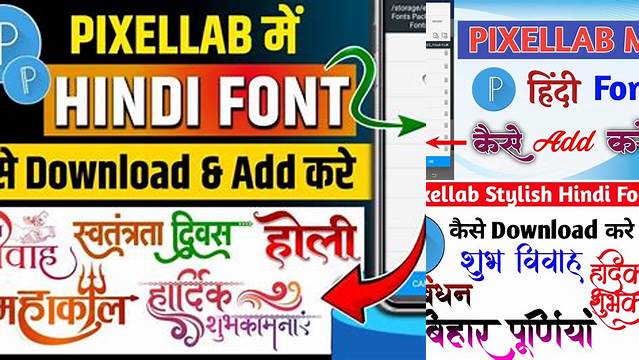
Awesome Hindi Fonts For PixelLab: A Complete Guide
Hey guys! Are you ready to dive into the world of beautiful Hindi typography in PixelLab? Using Hindi fonts in PixelLab can drastically elevate your designs, giving them a unique cultural touch and making them more appealing to a wider audience. Whether you're creating social media posts, posters, or any other graphic design project, the right Hindi font can make all the difference. In this comprehensive guide, we'll explore everything you need to know about using Hindi fonts in PixelLab. We'll cover where to find them, how to install them, and how to use them effectively to create stunning visuals. So, let's get started and unlock the potential of Hindi fonts in PixelLab!
H2: Why Use Hindi Fonts in PixelLab?
Alright, so why bother with Hindi fonts in PixelLab? Well, the first and foremost reason is to cater to a massive audience. Hindi is one of the most spoken languages in the world, and using Hindi fonts in your designs instantly makes them relatable and accessible to a vast number of people. Imagine creating a poster for an event; using a Hindi font can significantly increase its reach and appeal to the Hindi-speaking population. This is especially true if you're targeting a specific region or community where Hindi is widely spoken. Beyond audience reach, Hindi fonts add a unique aesthetic appeal to your designs. They bring a sense of cultural identity and authenticity that is hard to replicate with generic fonts. The beauty and elegance of Hindi script can transform a simple design into something truly eye-catching and memorable. Moreover, using Hindi fonts showcases your respect for the language and culture. It demonstrates that you value diversity and inclusion, making your brand or message more appealing to a broader audience. It is also a great way to stand out from the crowd. In a world saturated with content, using Hindi fonts can help your designs stand out and grab attention. It creates a visual distinction that makes your work more memorable and unique. This is crucial for building brand recognition and making a lasting impression on your audience. Using Hindi fonts in PixelLab isn't just about aesthetics; it's about connecting with a culture, expanding your reach, and creating designs that resonate with a diverse audience. So, incorporating these fonts can be a strategic move to enhance your visual communication and achieve your design goals.
H3: The Cultural Significance of Hindi Fonts in Design
When we talk about Hindi fonts in PixelLab, we're not just talking about letters and characters; we're talking about a rich tapestry of culture and history. Each Hindi font carries with it a unique story, reflecting the region's heritage and the traditions of the Hindi-speaking communities. These fonts are more than just a visual element; they represent a connection to a vibrant culture. The use of Hindi fonts in your designs demonstrates an understanding and appreciation of this cultural richness. This is especially important if you are targeting an audience that values their cultural identity. It shows that you respect their language, history, and traditions. Using Hindi fonts can also elevate your designs from a purely aesthetic perspective. The graceful curves and unique strokes of Hindi characters add an artistic flair that is hard to achieve with other fonts. They can bring a sense of elegance, sophistication, or even playfulness to your designs, depending on the font you choose. The specific font you choose can also communicate a lot about the tone and feel of your design. A traditional font might be perfect for a project related to history or culture, while a modern font could be ideal for a contemporary brand. By carefully selecting your Hindi fonts, you can create a consistent brand image that resonates with your target audience. Using Hindi fonts in PixelLab isn't just about visual appeal; it's about creating a deeper connection with your audience and enriching your designs with cultural significance. So, embrace the beauty and versatility of Hindi typography, and let it breathe new life into your creative projects. Remember, your choice of font speaks volumes and plays a crucial role in the overall impact of your design.
H2: Finding the Best Hindi Fonts for PixelLab
So, you're ready to find some awesome Hindi fonts in PixelLab, right? The first step is knowing where to look. Luckily, there are several excellent resources where you can find a variety of free and premium Hindi fonts. Google Fonts is a fantastic starting point, offering a wide selection of free, open-source fonts, including many Hindi fonts. You can easily browse and download fonts directly from their website. Another great option is Dafont, which has a vast collection of fonts, including a dedicated section for Hindi and other Indian scripts. Be sure to check the license before using the fonts for commercial purposes. Font Squirrel is also a great source, providing high-quality fonts that are free for commercial use. They have a curated selection, ensuring that the fonts are well-designed and easy to use. When searching for fonts, look for terms like